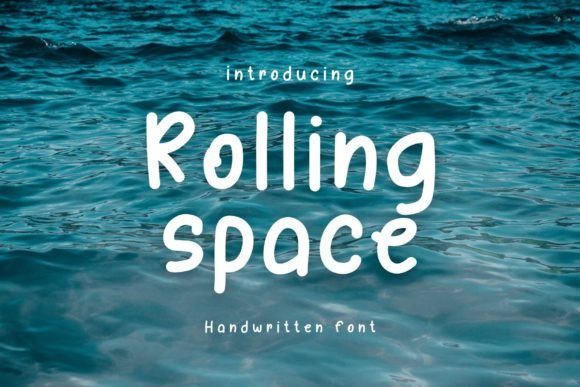
Journey into the realm of creativity with Rolling Space Font, a script font that sparks joy and authenticity in your projects. Designed by Brown Cupple Fonts, this captivating font is handwritten, with its charming strokes reminiscent of playful penmanship found in a heartfelt notebook.
Rolling Space Font isn't just a font; it's an expression of your individuality, a canvas for your imagination to dance on. Its whimsical nature brings life to blog posts, logos, branding, ads, invitations, greeting cards, planners, photo albums, decorations, and countless other endeavors.
With Rolling Space Font, you have the power to transform ordinary words into extraordinary works of art. Its delicate curves and lively glyphs add a personal touch to any project, making it stand out from the crowd. Whether you're a seasoned designer or just starting out, this font will elevate your creations to new heights.
Imagine your blog posts adorned with Rolling Space Font, captivating readers with its warm and inviting charm. Logos and branding infused with its playful spirit will leave a lasting impression on customers, making your brand unforgettable. Invitations and greeting cards handwritten with Rolling Space Font will carry your heartfelt words with an extra dose of sincerity.
Planners and photo albums adorned with this delightful font will become cherished keepsakes, telling the story of your life in a way that's both beautiful and personal. Decorations enhanced with Rolling Space Font will infuse your living space with a touch of whimsy, transforming it into a haven of creativity and cheer.
Rolling Space Font is more than just a font; it's an experience. It's an opportunity to express yourself fully, to let your imagination run wild, and to create works of art that reflect your unique personality. So embrace the allure of Rolling Space Font, let it ignite your creativity, and watch as your projects bloom into masterpieces.